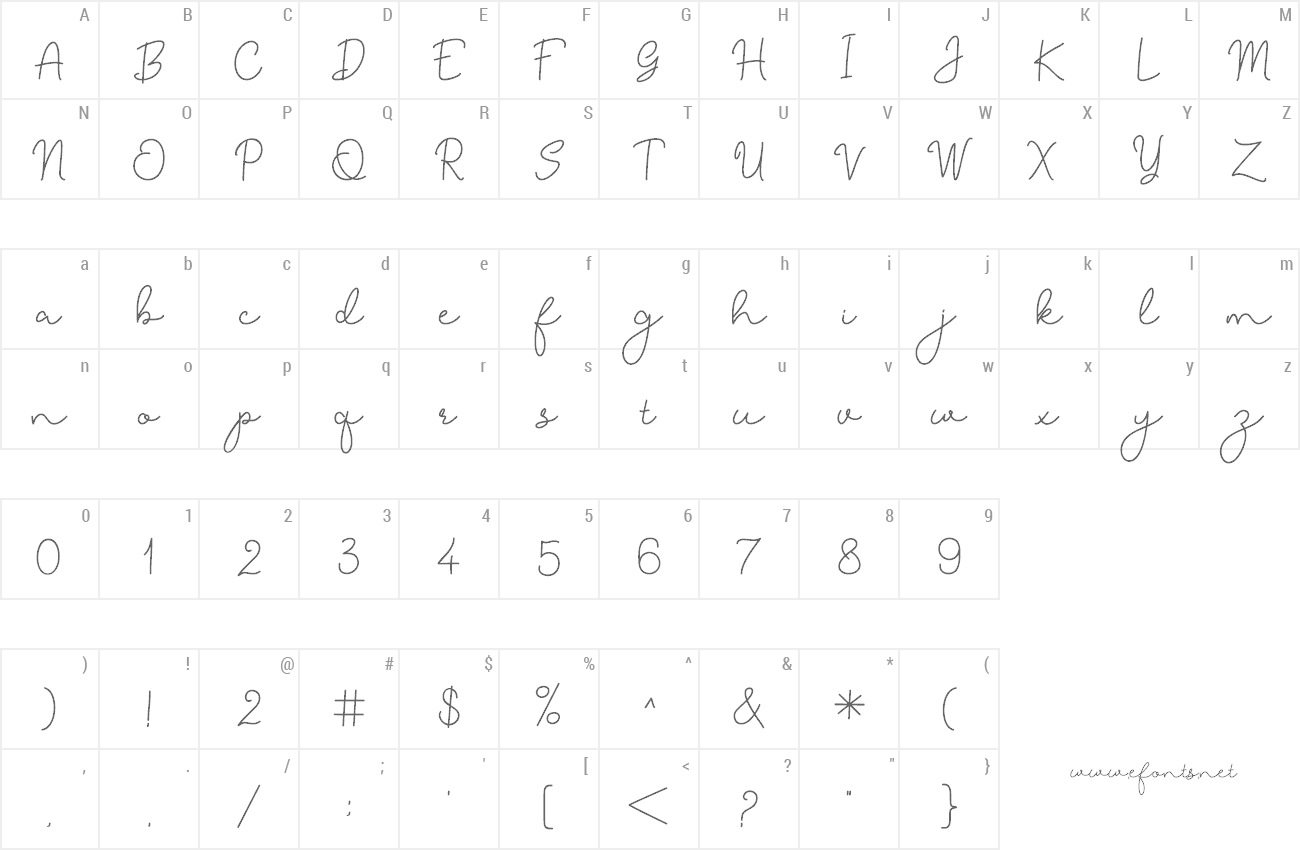
| Font name: | Chilldranety |
| Author: | Alfaraby Studio |
| Note by Alfaraby Studio | |
Chilldranety a fonts of Chilldranety stylish calligraphy that have a varied base line, fine lines, classic and elegant touches. Can be used for various purposes. Such as title, signature, logo, wedding invitation, t-shirt, letterhead, nameplate, label, news, poster, badge etc. https://fontbundles.net/alfarabystudio/296896-chilldranety |